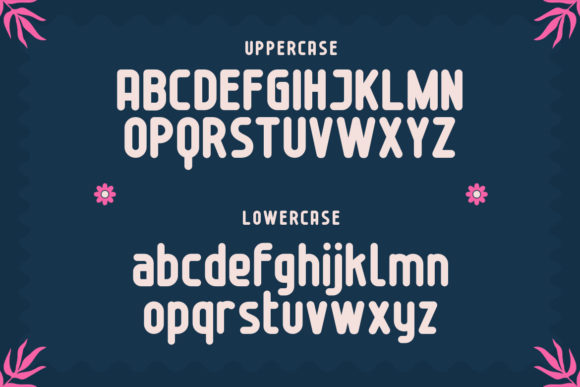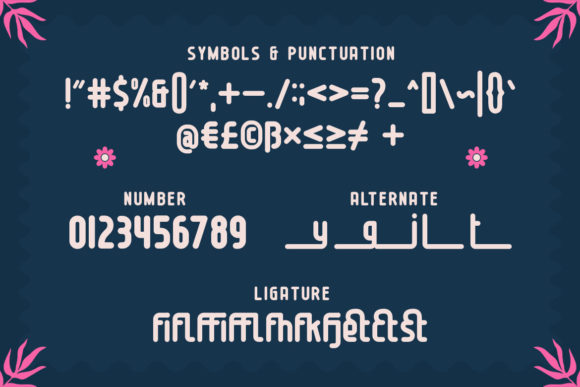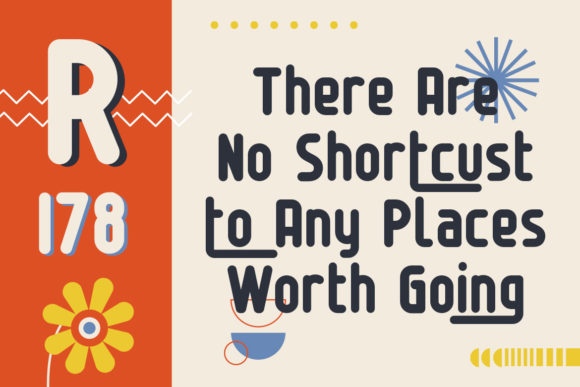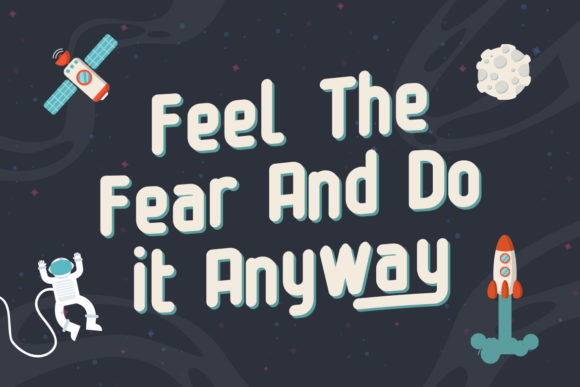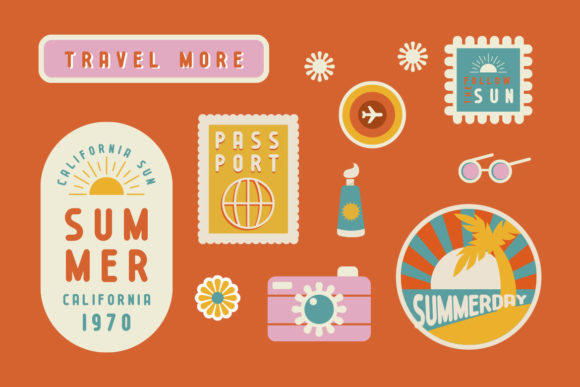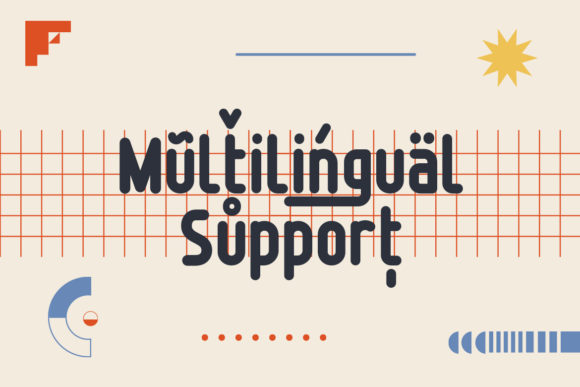
The Ultimate Design Companion: Uncovering the Charm of Daya Sans Font
I’ll never forget the time I was working on a project for a client who wanted a font that was both modern and timeless. I had spent hours scouring through font libraries, but nothing seemed quite right. That was until I stumbled upon Daya Sans Font. It was love at first sight! 😍 This cool, classic, and rounded sans serif font has been an incredible asset to my font library, and I’m excited to share its charm with you.
So, what makes Daya Sans Font so special? Here are a few things that I absolutely love:
- ✨ **Clean and crisp lines**: Daya Sans Font boasts a simplicity that’s hard to find in other fonts. Its clean lines make it perfect for body text, headings, and even titles.
- ✅ **Versatility**: This font is incredibly versatile and can be used for a wide range of projects, from branding and advertising to packaging and digital media.
- 💡 **Legibility**: Daya Sans Font is designed to be easy to read, even at small sizes. This makes it perfect for projects where text needs to be clear and concise.
Of course, no font is perfect, and Daya Sans Font has a few quirks:
- 🤔 **Limited character set**: While Daya Sans Font has a wide range of characters, it’s not a font that’s particularly well-suited for languages with non-Latin scripts.
- ⚠️ **Not ideal for body text in long documents**: While Daya Sans Font is great for short blocks of text, it can feel a bit too bold for long documents or articles.
The Story Behind Daya Sans Font
While the origins of Daya Sans Font are shrouded in mystery, it’s clear that the designers had a passion for clean lines, simplicity, and versatility. The font’s creator is said to have been inspired by the urban landscapes of Asia, where clean lines and simple shapes reign supreme.
| Font Name | Daya Sans Font |
| Author | TypeFactory |
| What is Daya Sans Font best used for? | Daya Sans Font is best used for projects that require a clean, modern, and versatile font, such as branding, advertising, and digital media. |
| Is Daya Sans Font a script font? | No, Daya Sans Font is a sans serif font, characterized by its clean lines and lack of decorative flourishes. |